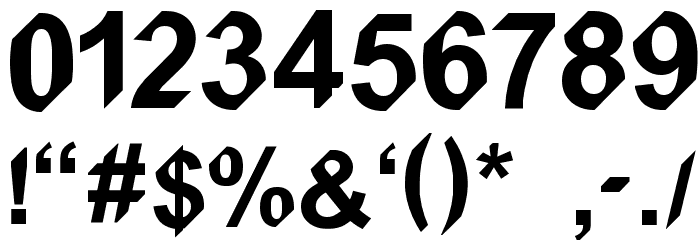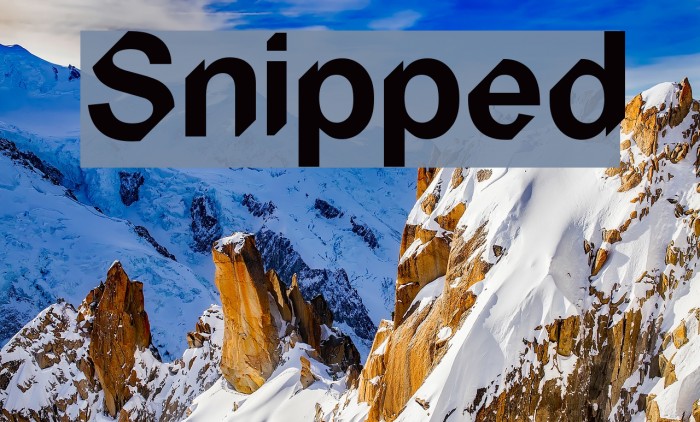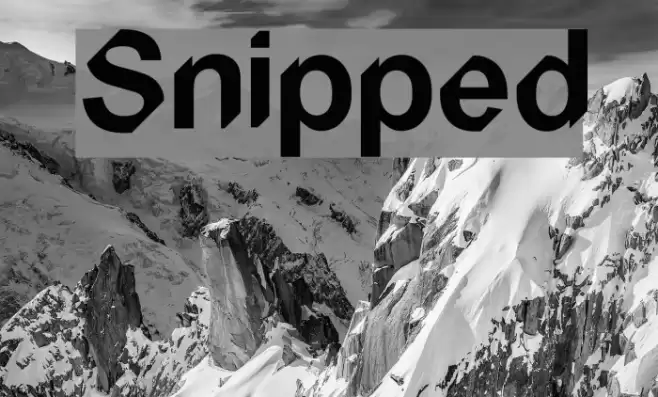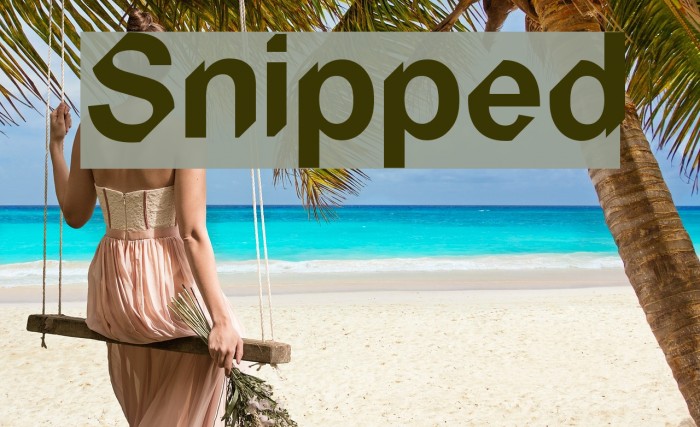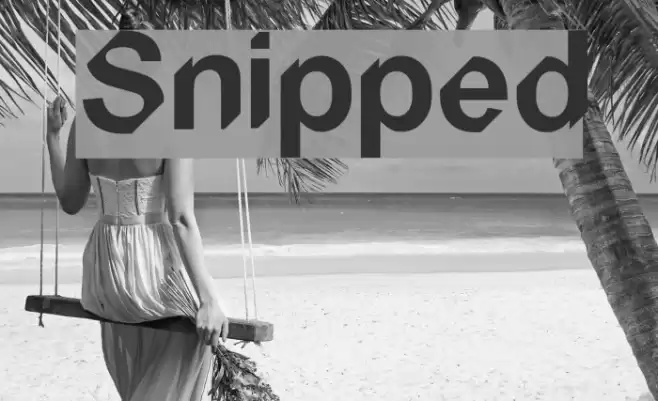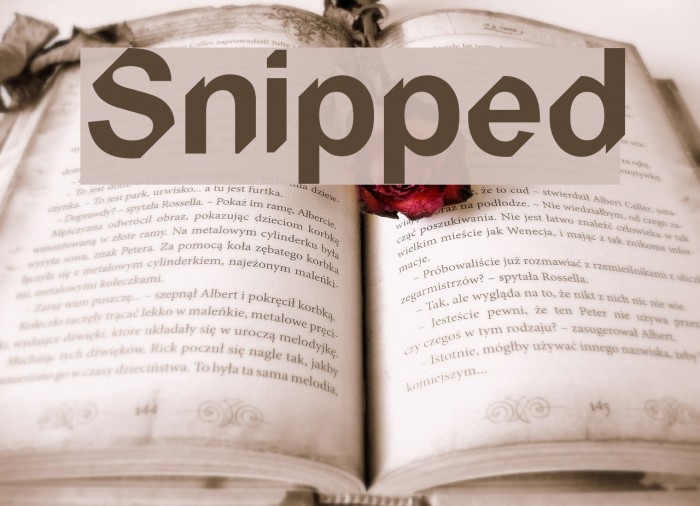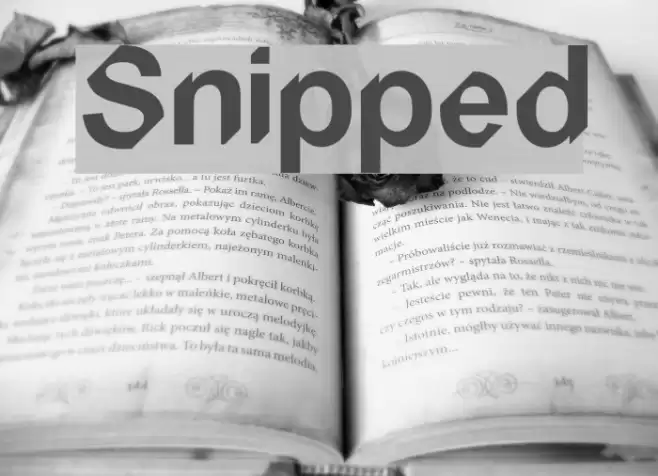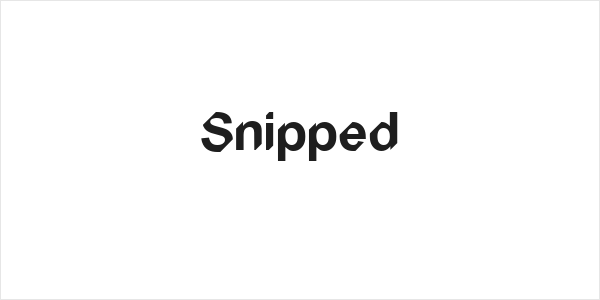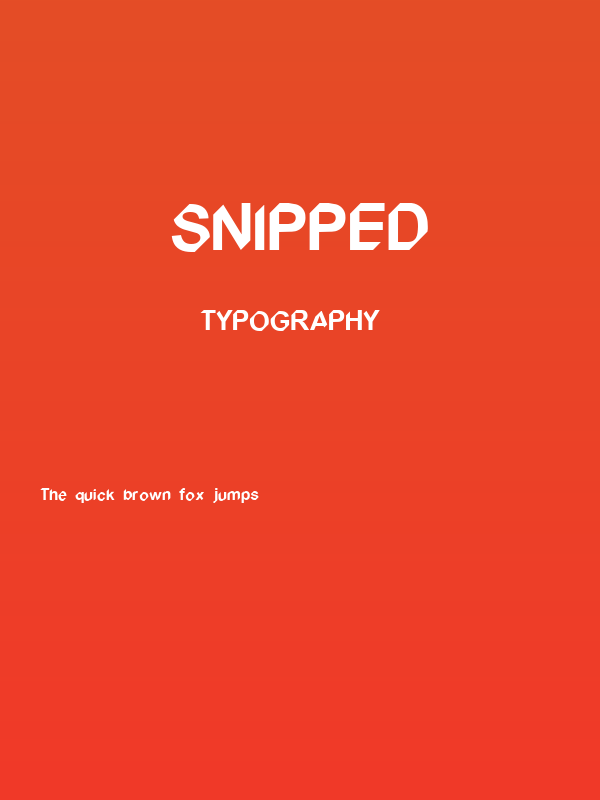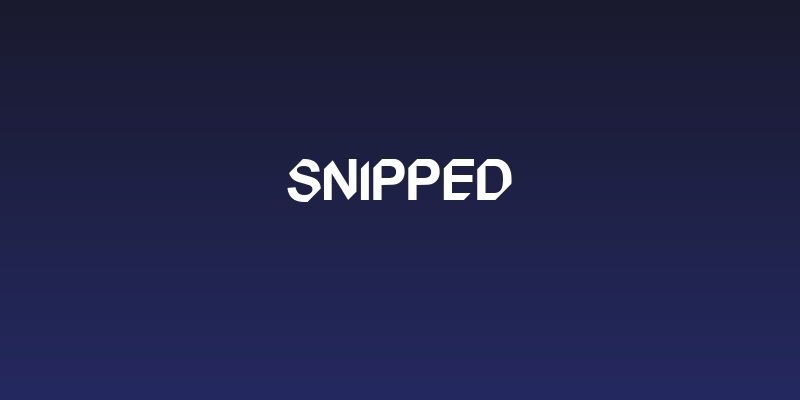
Snipped Font
Snipped Description
This font features bold, geometric letterforms with a strong presence. The uppercase letters are sharply defined with a slight slant, giving them a dynamic and modern appearance. The lowercase letters maintain a consistent weight, complementing the uppercase with a slightly rounded finish on certain characters like 'a' and 'e'. The numerals are robust and clear, ensuring readability. Special characters are designed with the same boldness, providing a cohesive look across all glyphs. The overall style is clean and impactful, suitable for making a statement.